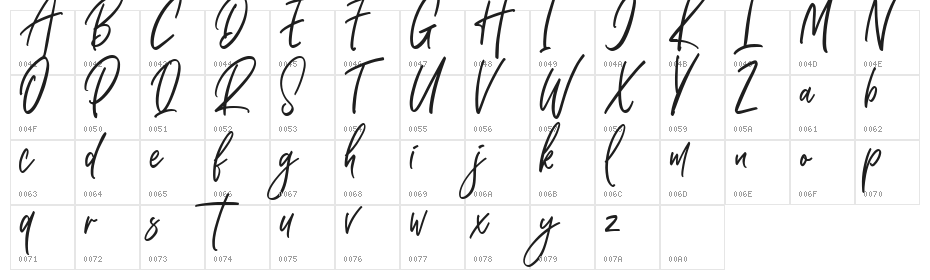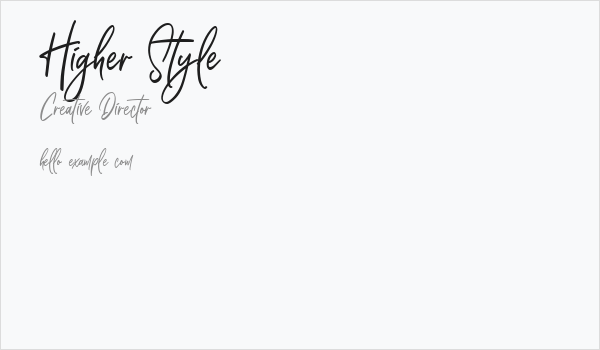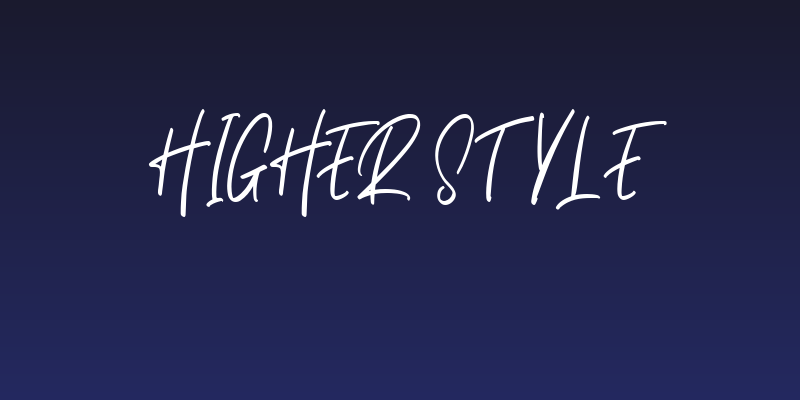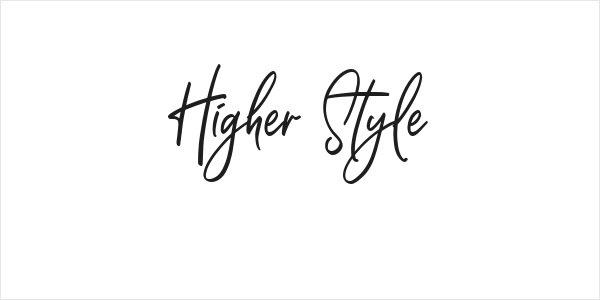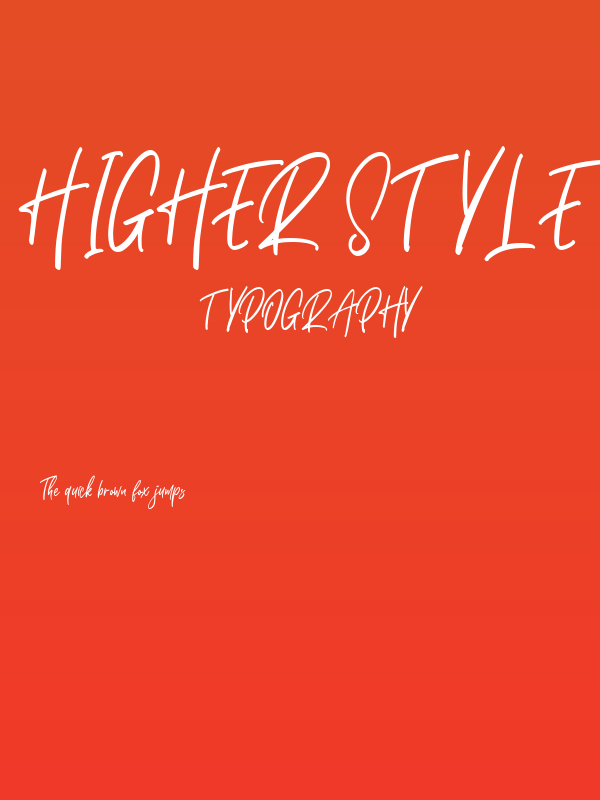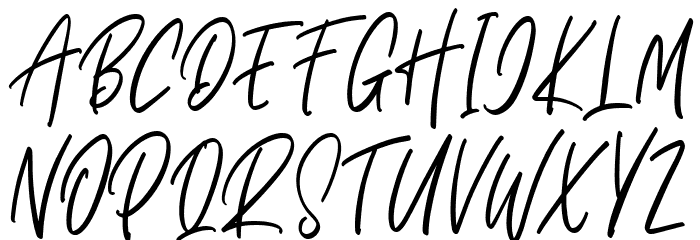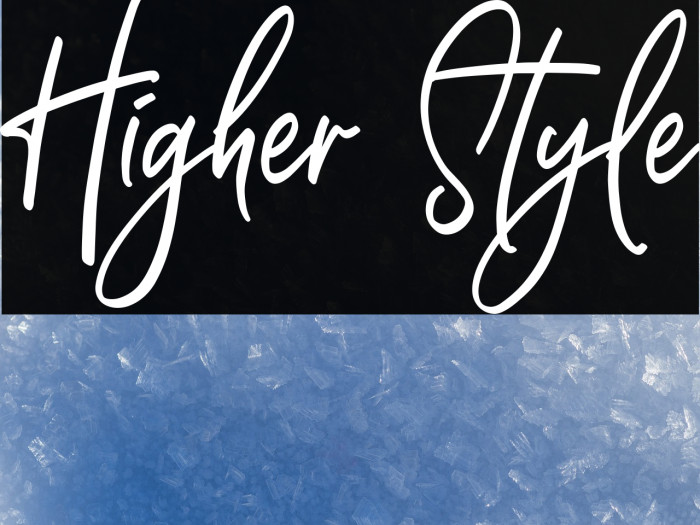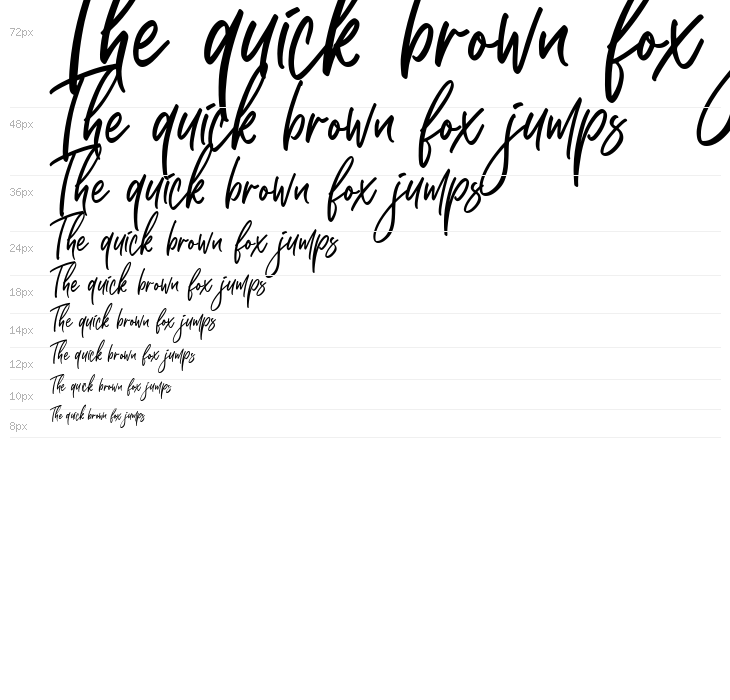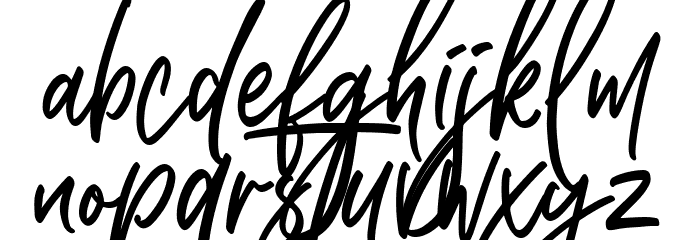
Higher Style Font
Higher Style Description
This font features a dynamic and expressive handwritten style, characterized by fluid and elongated letterforms. The strokes are smooth and slightly irregular, giving it a natural and personal touch. The uppercase and lowercase letters maintain a consistent flow, with some letters extending below the baseline, adding to its casual elegance. The font's energetic appearance makes it suitable for creative and artistic projects, where a personal and informal tone is desired. Its unique style can capture attention and convey a sense of individuality and creativity.
| Proposed Projects | Ideal for branding, invitations, greeting cards, and social media graphics. |